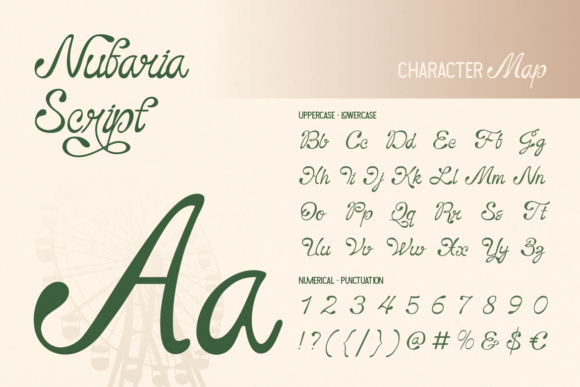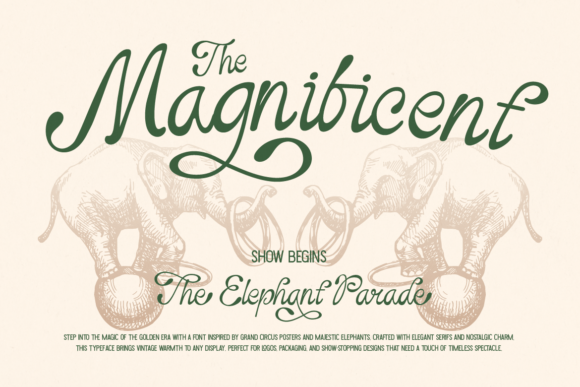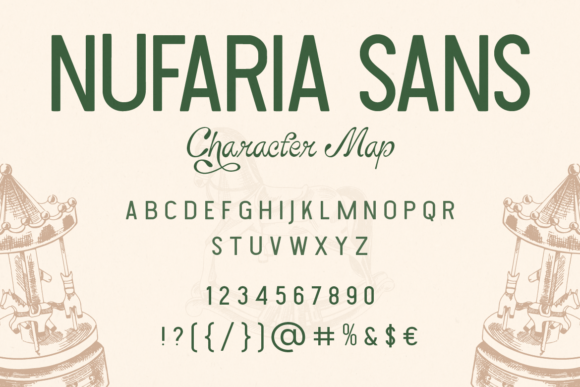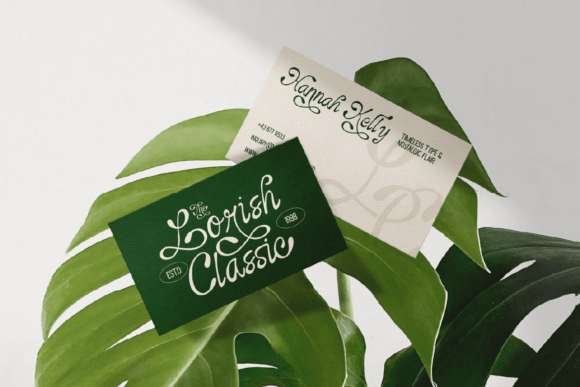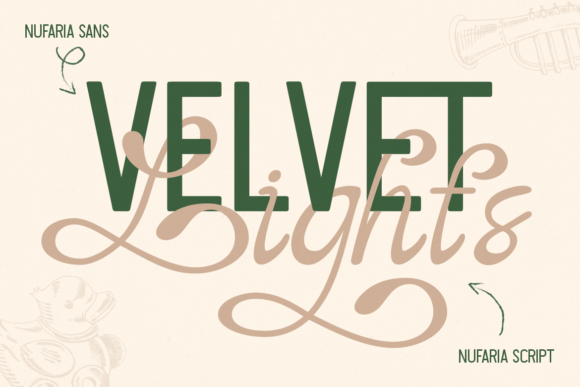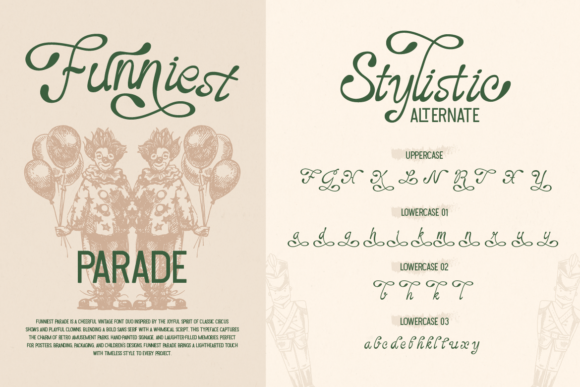
Introduction to Nufaria Font
Have you ever stumbled upon an old vintage poster and felt an instant rush of inspiration? For designers, this is often the moment when creativity sparks and ideas start flowing. As you gaze at the distressed textures and charming typography, you can’t help but wonder how you can capture that same essence in your next project. Enter Nufaria Font, a stunning duo that combines the warmth of a retro script with the clarity of a clean sans serif.
With Nufaria Font, designers can add a touch of elegance and sophistication to their high-quality designs. Whether you’re working on a creative project that requires a handwritten feel or need a clean, modern look for your branding, this versatile font duo has got you covered. And the best part? Nufaria Font is available for free download, making it an invaluable design resource for designers of all levels.
- Nufaria Font is a high-quality, free download font ideal for creative projects requiring unique typography.
- This font is particularly suited for use in graphic design, digital art, and other creative endeavors where a distinctive, high-resolution font is necessary.
- The font’s unique characteristics, such as its intricate details and custom letterforms, make it an excellent design resource for creatives.
Honest Review: Nufaria Font
I recently came across the Nufaria Font, and I must say it’s a fantastic addition to any designer’s toolkit. This high-quality font is available for a free download, making it an excellent resource for creative projects on a budget.
- ✨ Unique and stylish design that adds a touch of elegance to any text
- ✨ Highly customizable with a transparent background, allowing for seamless integration into various design elements
- ✨ Supports a wide range of languages, making it suitable for global projects
- ⚠️ Limited character set, which may not be ideal for projects requiring extensive typography
- ⚠️ Not suitable for small text sizes, as it may become difficult to read
Overall, I’m impressed with the Nufaria Font’s design and functionality. While it may not be perfect for every project, it’s an excellent choice for those seeking a high-quality, free font. Its versatility and unique style make it a valuable resource for any designer.
To get the most out of the Nufaria Font, experiment with different font sizes, colors, and styles to create a unique look. You can also combine the font with other design elements to add depth and visual interest to your project.
The Nufaria Font is suitable for a wide range of creative projects, including logos, brochures, business cards, and social media graphics. Its transparent background makes it easy to combine with other design elements, while its high-quality design ensures a professional finish.